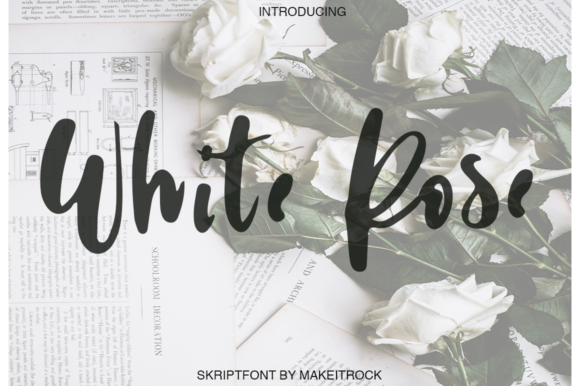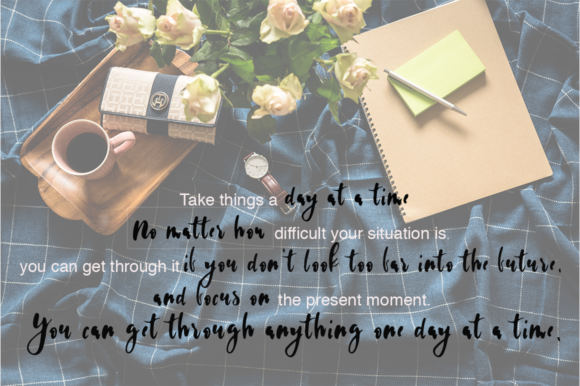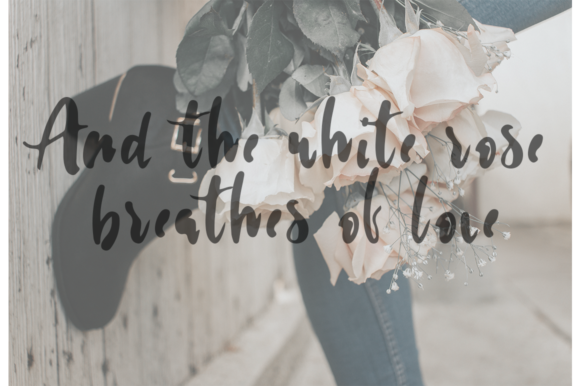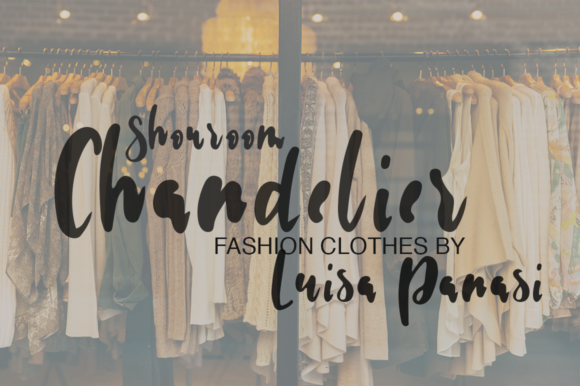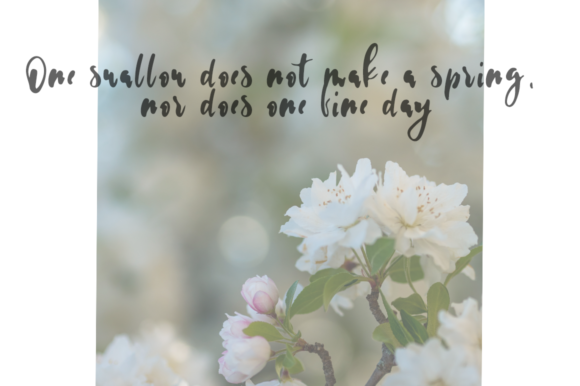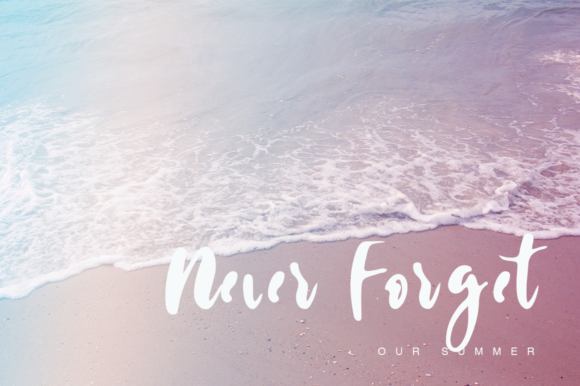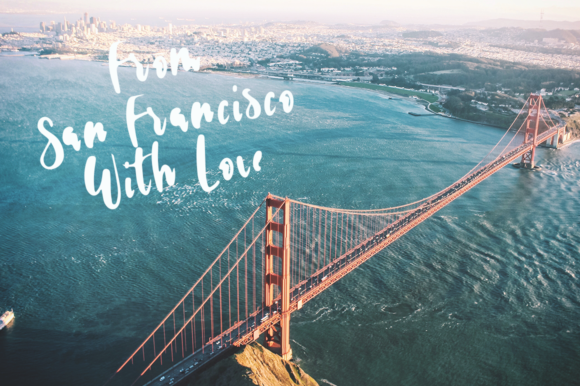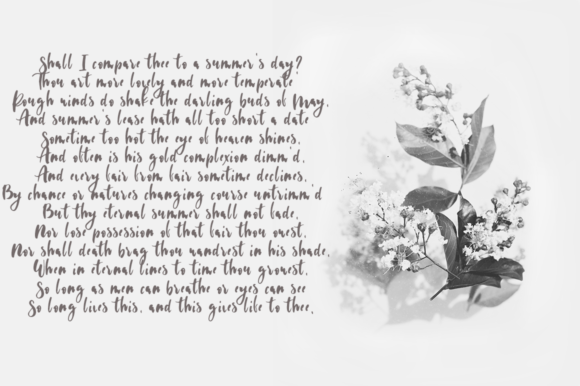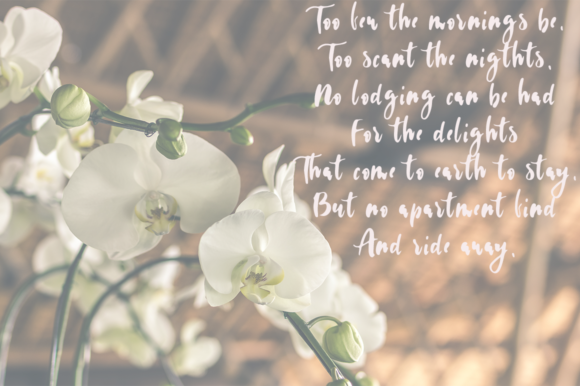
White Rose Font
About White Rose Font
White Rose is a fresh, handmade calligraphy font. It has thick but elegant letters that will give your design a striking look.
Very suitable for greeting cards, branding materials, business cards, quotes, posters, and more!